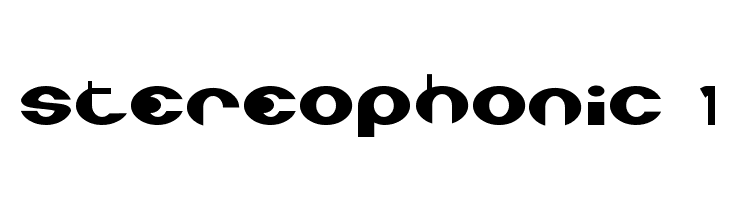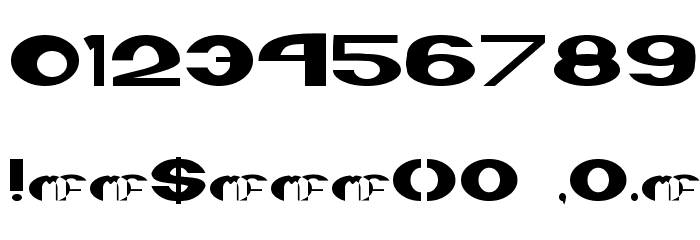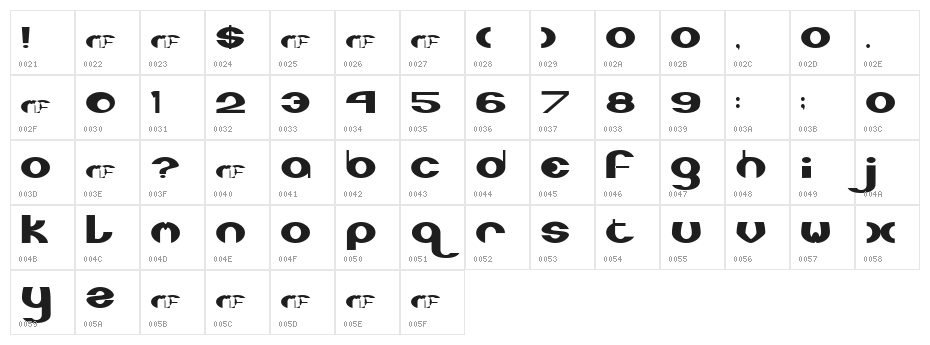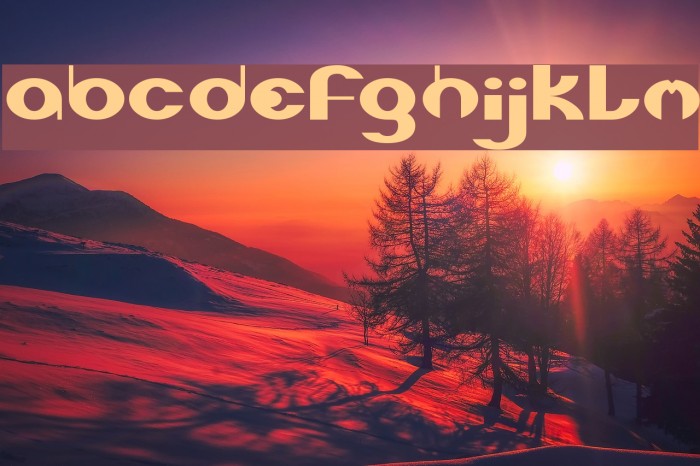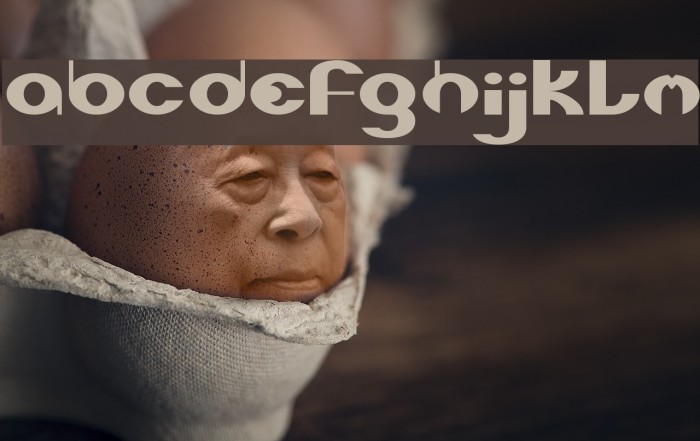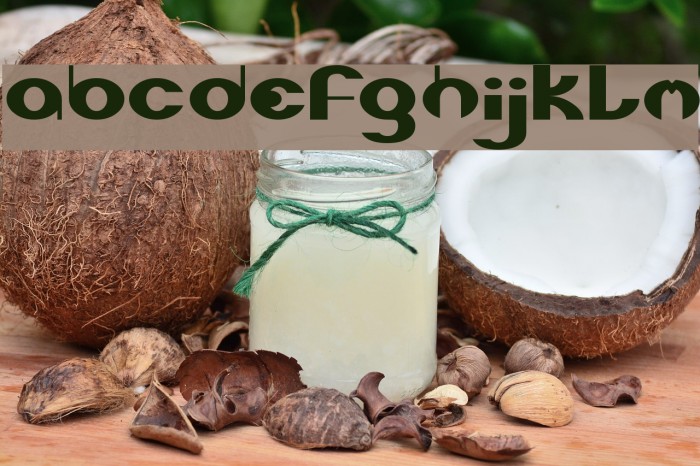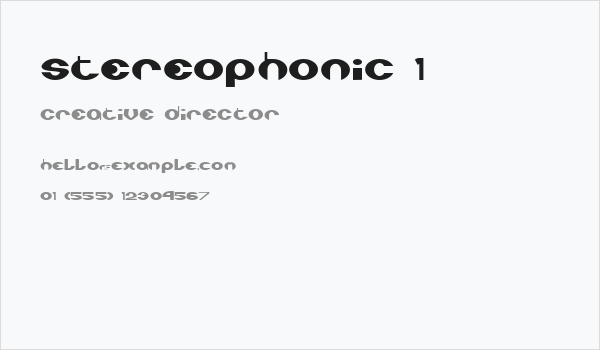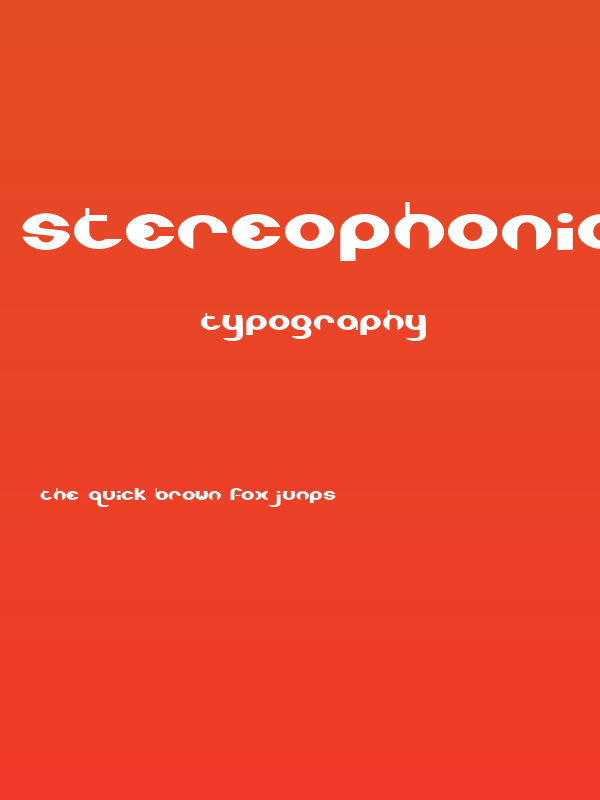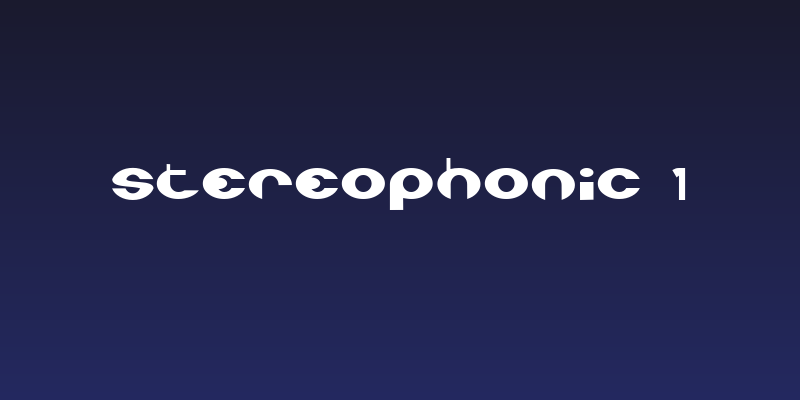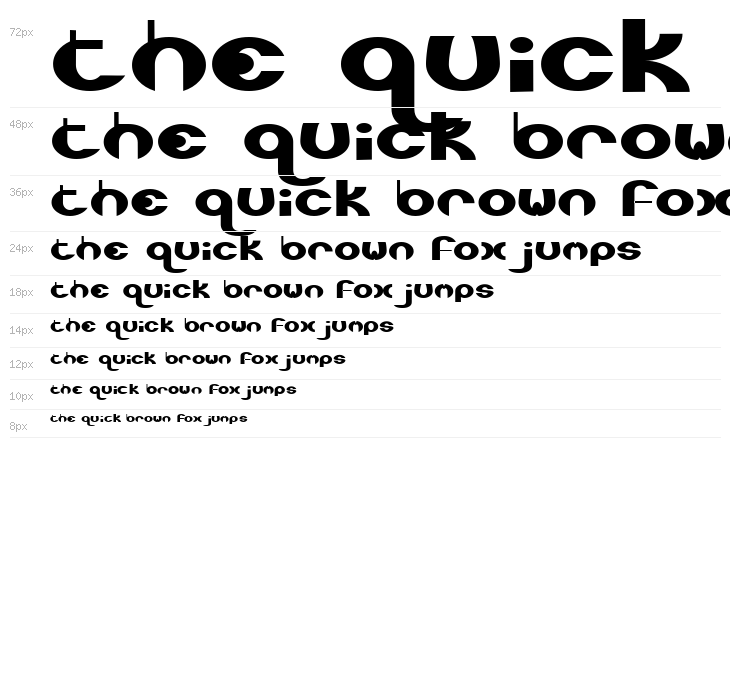
Stereophonic 1 Font
Stereophonic 1 Description
This font features a bold and modern design with a unique geometric style. The characters are crafted with a combination of sharp angles and smooth curves, creating a dynamic and futuristic appearance. The uppercase and lowercase letters maintain a consistent style, with some characters exhibiting a distinctive cut-out effect that adds to the overall aesthetic. The numbers follow the same design principles, ensuring uniformity across all characters. Special characters are creatively integrated, maintaining the font's bold and innovative look.